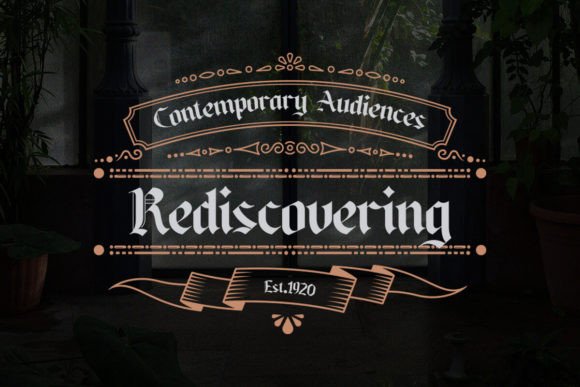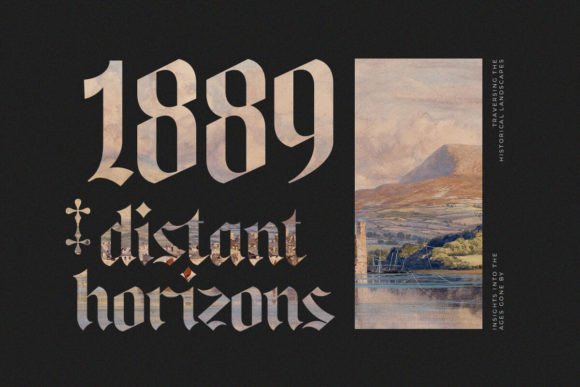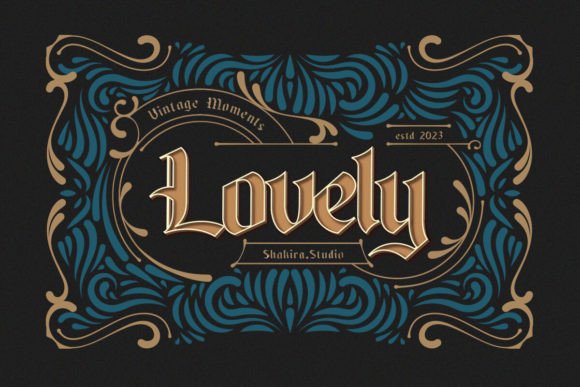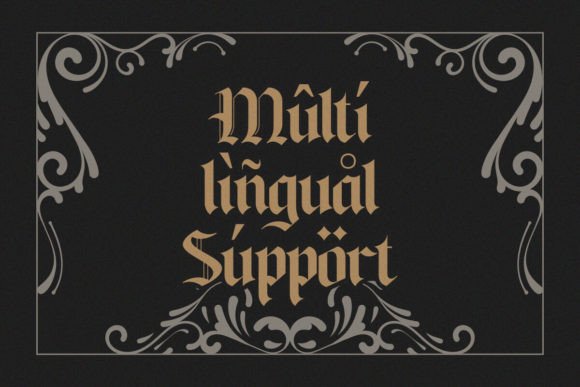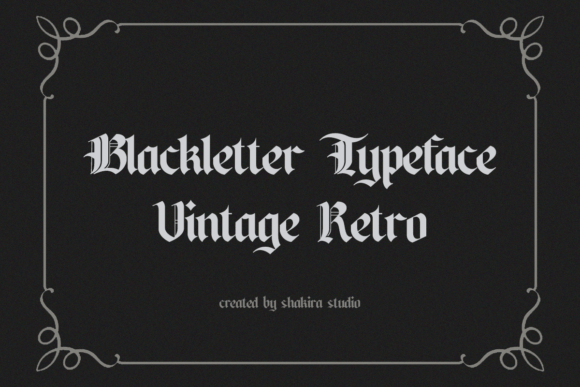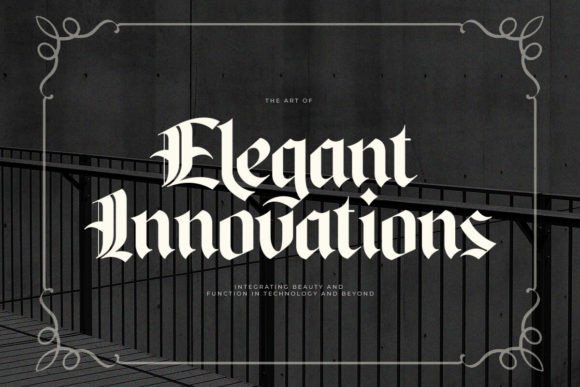
Introducing Baghen – Embrace the Timeless Charm of an Old English Blackletter Font!
Are you a designer or crafter looking to add a touch of elegance and sophistication to your projects? Look no further than Baghen, a stunning Old English blackletter font that will transport you back in time to an era of classic beauty and refinement. With its intricate details and ornate flourishes, Baghen is the perfect choice for anyone seeking to infuse their designs with a sense of tradition and authenticity.
The Essence of Blackletter Fonts
Blackletter fonts have been a staple of typography for centuries, with their origins dating back to the Middle Ages. Characterized by their dramatic flourishes and intricate details, blackletter fonts evoke a sense of grandeur and sophistication. Baghen is no exception, with its classic appearance and vintage appeal making it perfect for a wide range of design applications.
What Makes Baghen Special?
So, what sets Baghen apart from other fonts? Here are just a few features that make it a standout choice for designers and crafters:
- Timeless Charm: Baghen’s Old English blackletter design ensures that your projects will never go out of style. Its classic appearance is perfect for creating timeless pieces that will be cherished for years to come.
- Intricate Details: With its ornate flourishes and intricate details, Baghen adds a level of sophistication to any design. Whether you’re creating invitations, signage, or branding materials, Baghen is sure to impress.
- Vintage Appeal: Baghen’s vintage appeal is undeniable. Its distressed texture and classic design make it perfect for creating projects that demand attention and evoke a sense of nostalgia.
- Versatility: Whether you’re working on a wedding invitation, a logo, or a signage project, Baghen is the perfect choice. Its versatility ensures that it can be used in a wide range of design applications.
Design Applications for Baghen
So, what can you create with Baghen? The possibilities are endless! Here are just a few ideas to get you started:
- Invitations: Create stunning wedding invitations, birthday invitations, or any other type of invitation that demands attention and elegance.
- Signage: Use Baghen to create eye-catching signage for your business or event. Its vintage appeal and classic design make it perfect for creating signs that stand out.
- Branding Materials: Infuse your branding materials with a sense of tradition and authenticity using Baghen. From logos to packaging, Baghen is the perfect choice for creating cohesive and sophisticated branding.
- Stationery: Create beautiful stationery, including letterheads, envelopes, and notecards, using Baghen’s elegant design.
Why Choose Baghen?
With so many fonts to choose from, why choose Baghen? Here are just a few reasons why designers and crafters are falling in love with this stunning Old English blackletter font:
- Unique Design: Baghen’s unique design ensures that your projects will stand out from the crowd. Its intricate details and ornate flourishes make it a true standout.
- Easy to Use: Despite its intricate design, Baghen is surprisingly easy to use. Whether you’re a seasoned designer or a crafting novice, you’ll find that Baghen is simple to incorporate into your projects.
- High-Quality: Baghen is a high-quality font that is designed to deliver exceptional results. Its clear and crisp design ensures that your projects will look professional and polished.
| Font Name | Baghen Font |
| Author | Shakira Studio |
In conclusion, Baghen is a stunning Old English blackletter font that is sure to add a touch of elegance and sophistication to your designs. With its intricate details, ornate flourishes, and vintage appeal, Baghen is the perfect choice for designers and crafters seeking to create timeless pieces that demand attention. Whether you’re working on invitations, signage, branding materials, or stationery, Baghen is the perfect choice. So why wait? Embrace the timeless charm of Baghen today and take your designs to the next level!